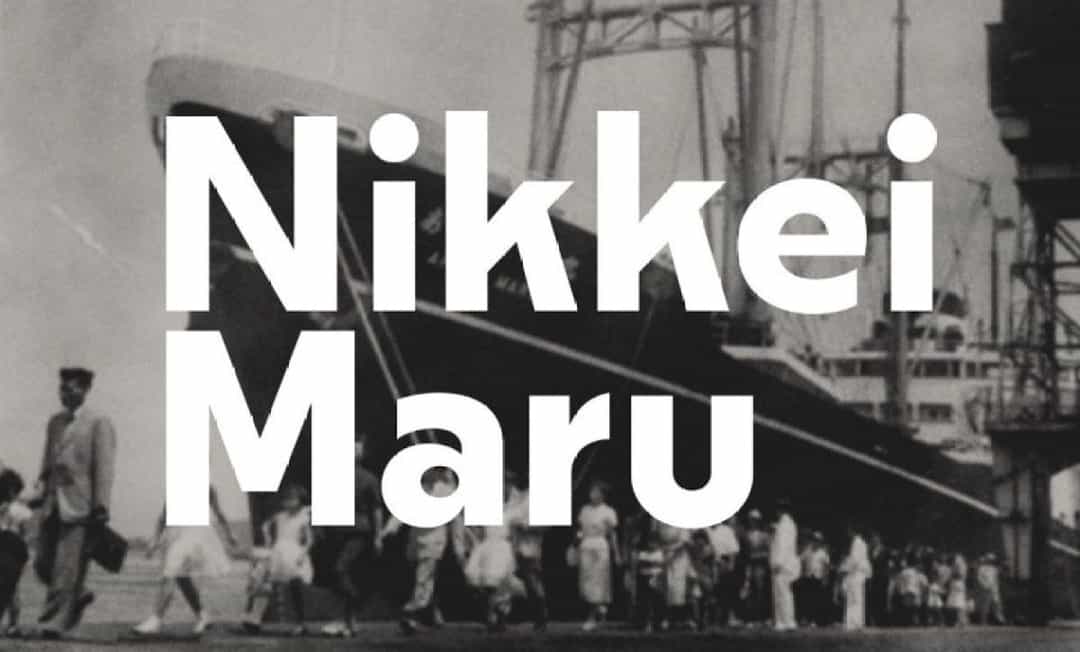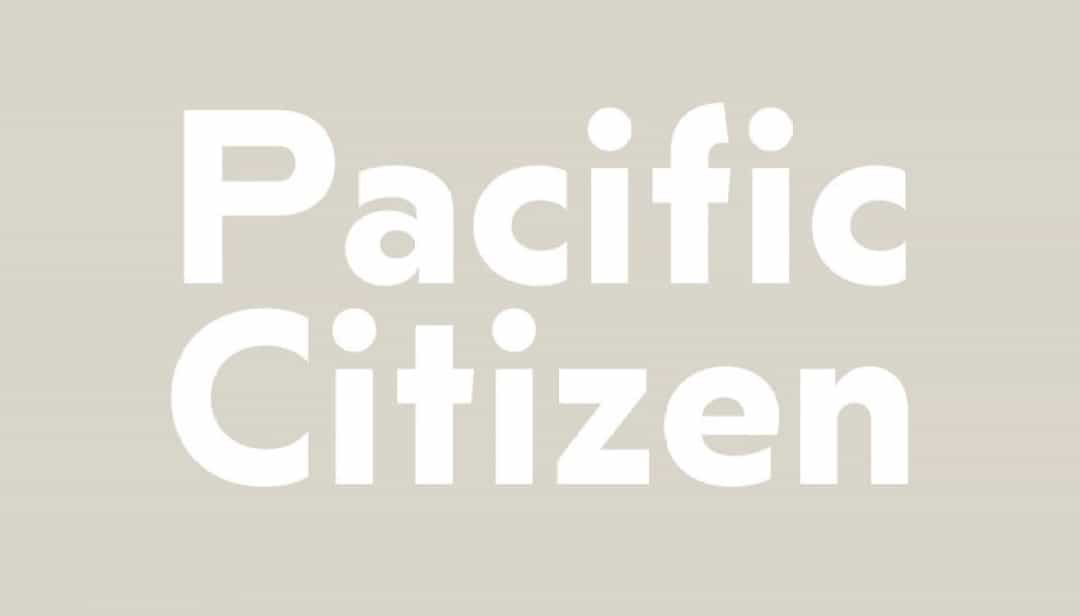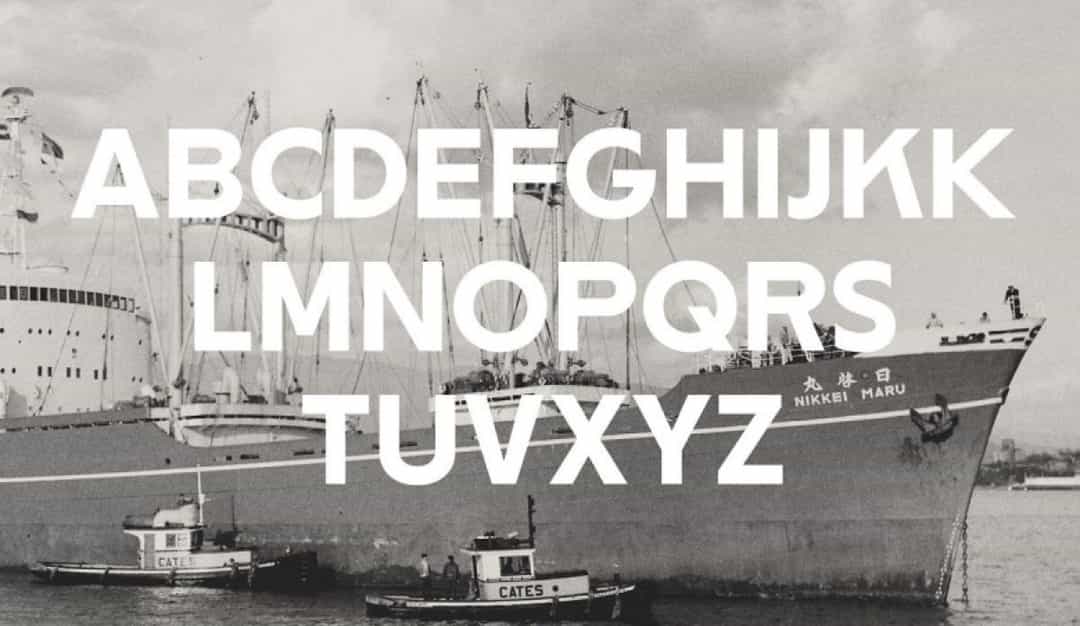
Nikkei Maru is a sans-serif typeface designed to make designs stand out and appear striking, modern, and distinctive. Inspired by an image depicting ships carrying Japanese immigrants to America as well as our desire to discover more of our family’s immigration history through ancestral roots research, this font pays a salute to Japanese immigration in an artistic fashion.